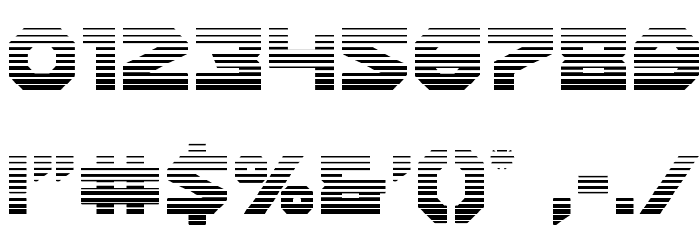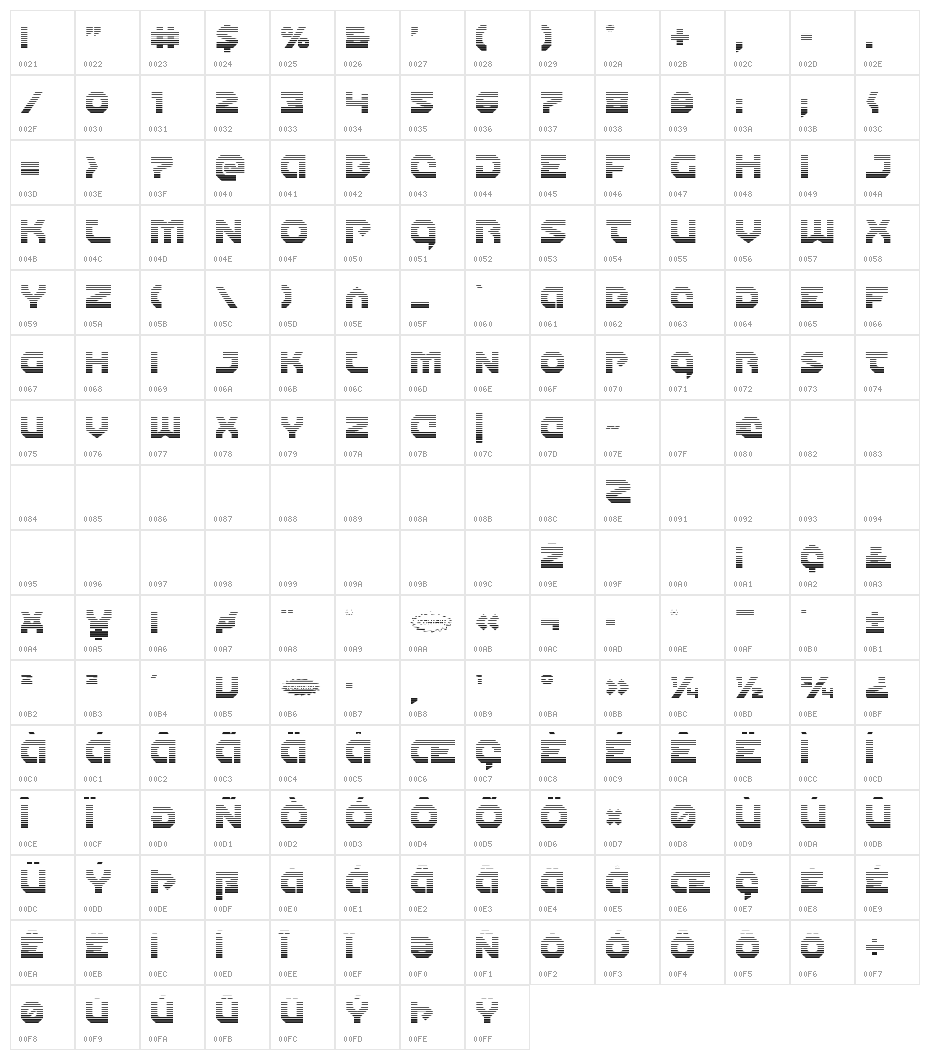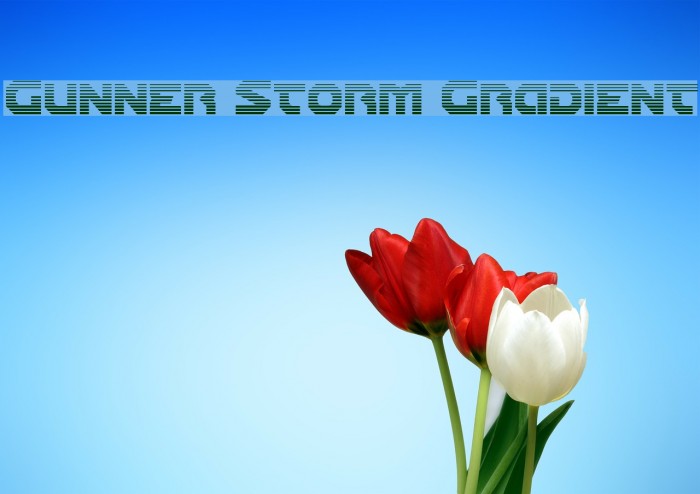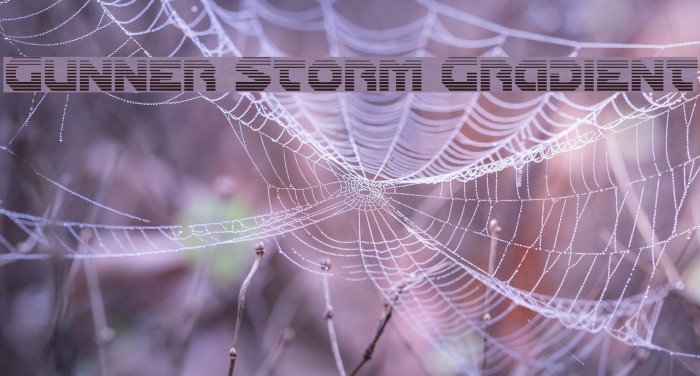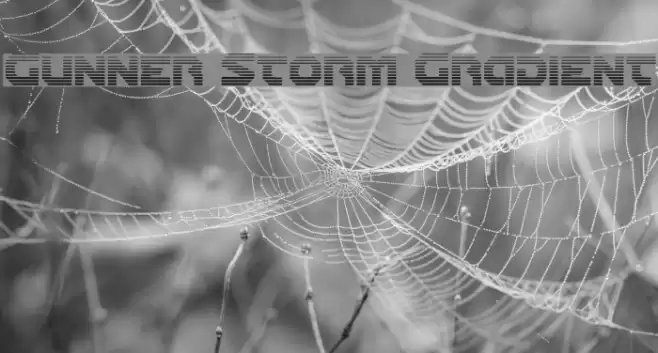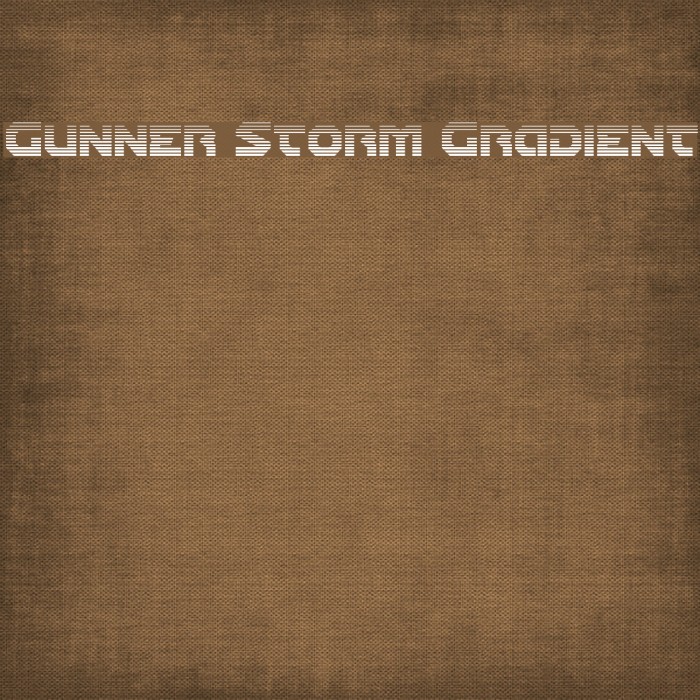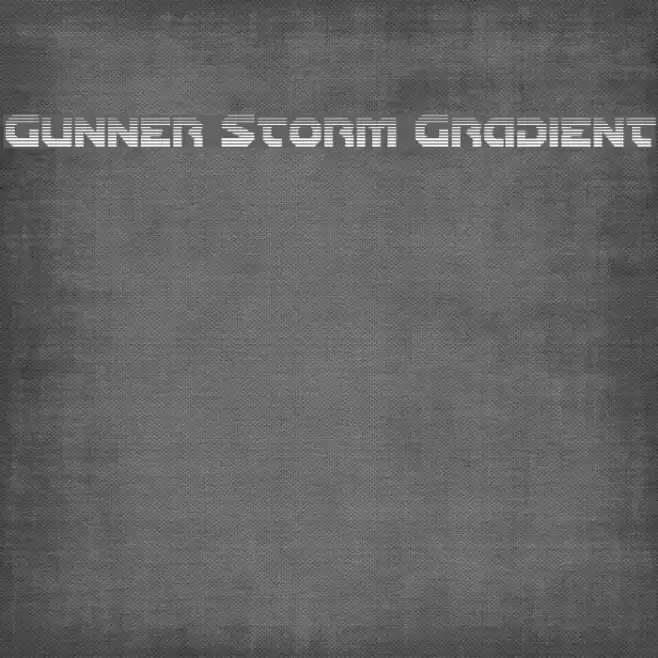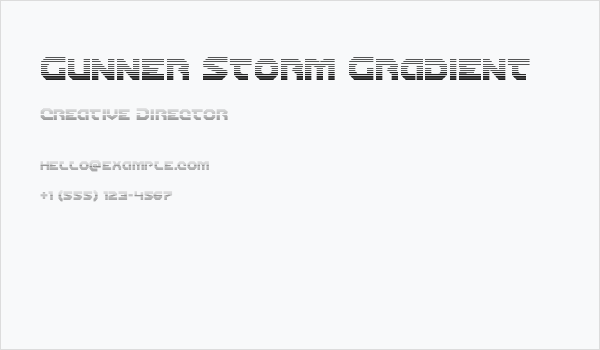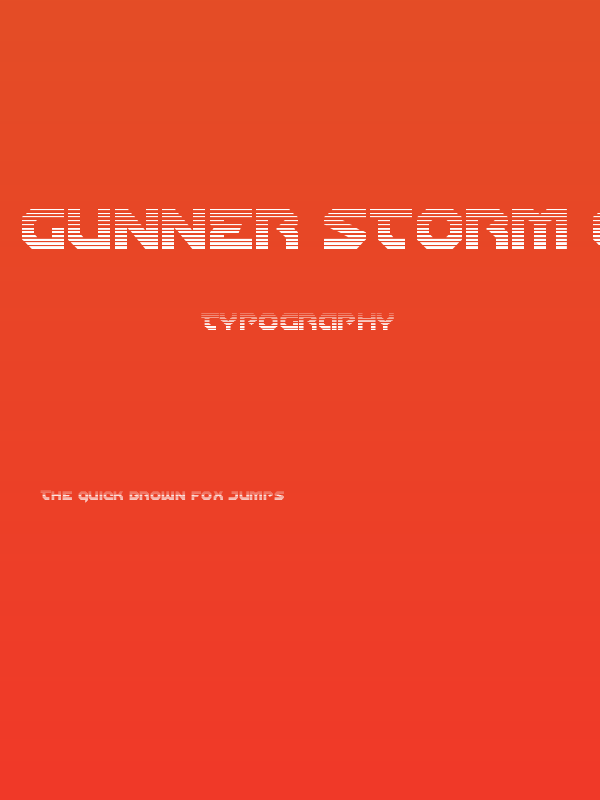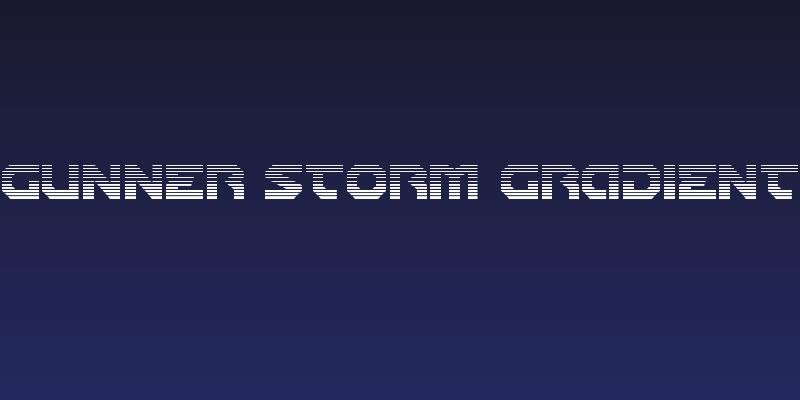
Gunner Storm Gradient Font
Gunner Storm Gradient Description
This font features a bold, futuristic design with a distinct horizontal line pattern running through each character, creating a gradient effect. The characters are constructed with angular, geometric shapes, giving them a modern and edgy appearance. The uppercase and lowercase letters maintain a consistent style, while the numbers and special characters integrate seamlessly into the overall design. The font's unique line pattern adds a sense of movement and dynamism, making it stand out in any context.
| Overall Style | Futuristic, Modern |
| Proposed Projects | Ideal for sci-fi themed projects, technology branding, video game titles, and modern poster designs. |